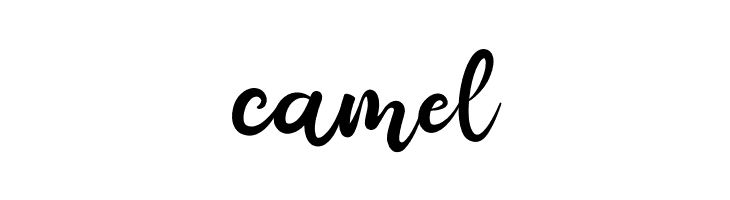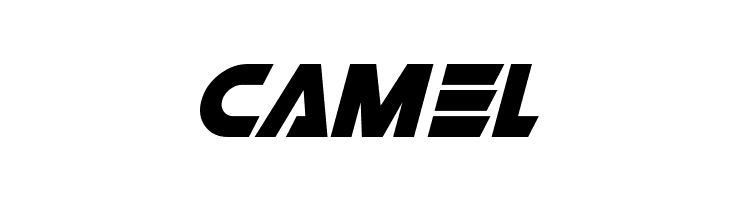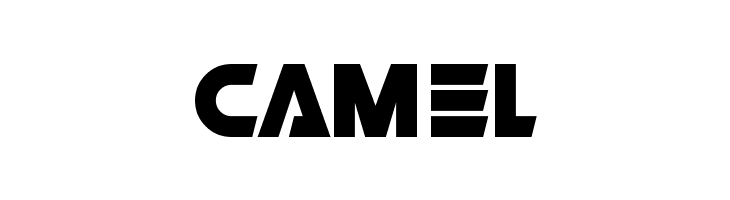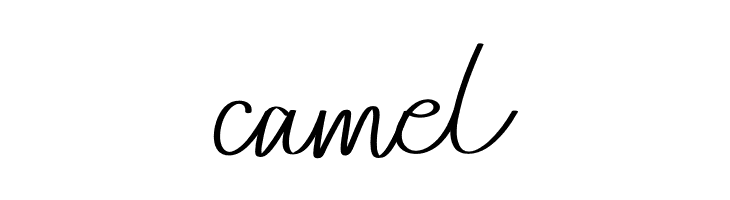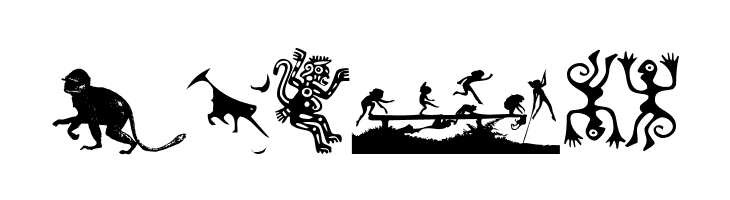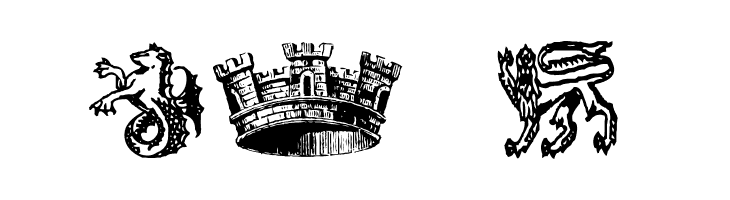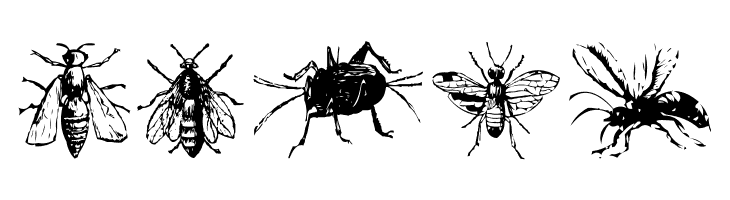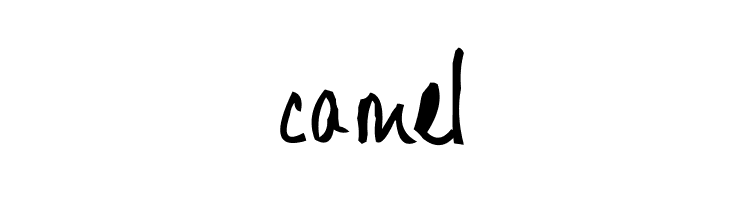
• AEZholidaybears
Holiday-themed bear illustrations as font glyphs.
• AEZinsects
A decorative insect-themed dingbat font with detailed illustrations.
• AEZLeighHW
A bold, expressive handwritten font with a casual and artistic style.
• AEZlemonade
A bold, modern font with thick strokes and a commanding presence.
• AEZmedievaldings2
Intricate medieval-themed dingbats with detailed, ornate designs.
• AEZmoonbeam
A bold, artistic font with circular elements and dynamic strokes.
• AEZSTPatricksDay
St. Patrick's Day-themed dingbat font with festive illustrations.
• AEZsunflowers
A collection of sunflower-themed decorative glyphs.
• AEZturtle
Whimsical dingbat font with diverse turtle illustrations.
• AEZzipedity
A playful, dotted font with a whimsical and decorative style.
• AffectionatelyYours
A playful, cursive font with a whimsical, handwritten style.
• Affichage Regular
A bold, three-dimensional font with geometric precision and shadow effects.
• AffigMonkeys
A playful, pictorial font with monkey and animal illustrations and geometric shapes.
• Affilliatte Demo
A playful, casual handwritten font with flowing letterforms.
• Affinities Free Regular
A dynamic handwritten font with fluid, sweeping strokes and a natural flow.
• Affinity Future
A futuristic, geometric font with bold, angular letterforms.
• Affirmation_
A lively handwritten font with fluid, dynamic strokes and a playful demeanor.
• Affirmation_
A lively handwritten font with fluid, connected strokes and bold uppercase letters.
• Affirmative
• Affirmative Italic
A bold, italicized font with a modern, dynamic style.